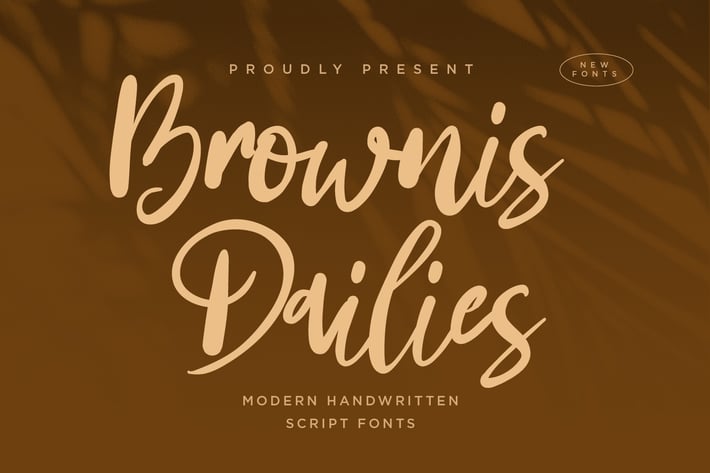
Brownis Dailies - Handwritten Script fonts
Brownis Dailies is a Handwritten Script font, will be suitable for any projects such as branding, promotional ads, quotes design, merchandise, social media and much more. make your work or your business to high level!!! special events, and all your other lovely projects that need beautiful handwriting taste.
- Uppercase & Lowercase
- Numerals
- Punctuations (OpenType Standard)
- Accents (Multilingual Characters)